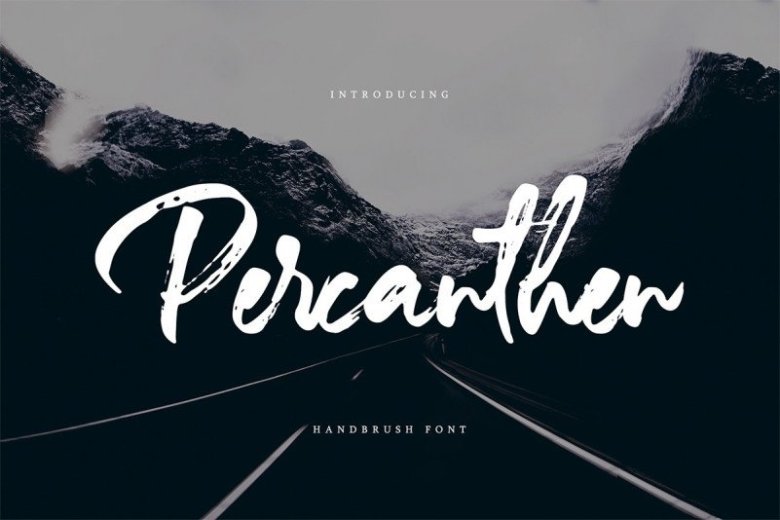
Percanthen Font
Percanthen Brush Font is an exciting hand-drawn font created by Vztype with brush style. This beautiful script can make your text appear elegant, luxurious, and modern! This font perfect for branding projects, logo, book cover design, tshirt designs, social media posts, advertisements, product packaging, product designs, label, watermark, invitation, stationery and any projects.